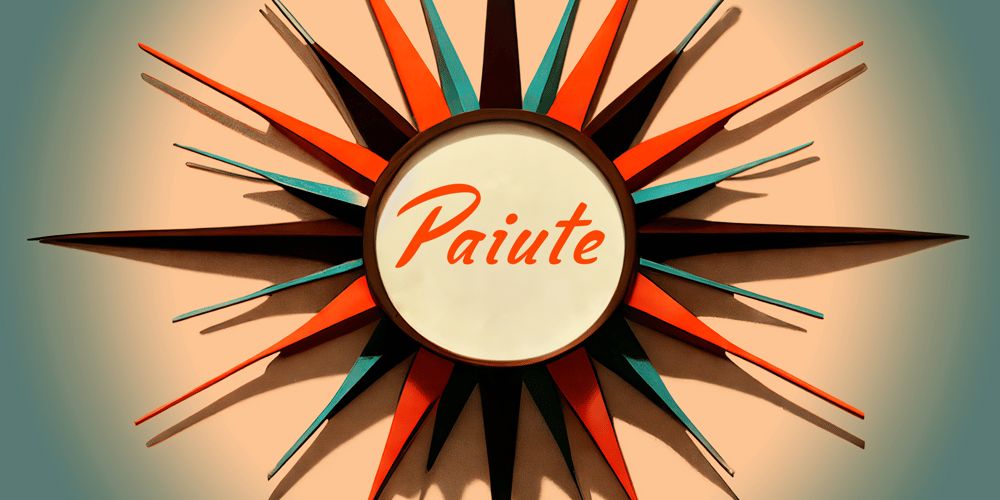
Paiute
Paiute font
Paiute Font Family was designed by Jeremy Dooley and published by insigne. Paiute contains 7 styles and family package options. Feast your eyes on Paiute, the sultry script that’ll have your design looking hotter than a Vegas summer! This font is so seductive, it’ll make your audience swoon harder than when Elvis was at the Sands.The exaggerated top stroke and sharply slanted terminals give Paiute a look that’s straight out of the vintage Vegas scene. It’s like the Rat Pack meets Marilyn Monroe in a smoky casino bar.Whether you’re designing a magazine cover, book cover, or movie poster, Paiute is the perfect choice for that extra touch of va-va-voom. It’s like sprinkling glitter on your design – except it won’t get stuck in your hair.So why settle for boring fonts when you can make your project stand out like a sequined jumpsuit? Let Paiute help you bring that authentic 1960s Vegas vibe to your marketing. Your audience will be shouting “Viva Las Paiute” in no time!